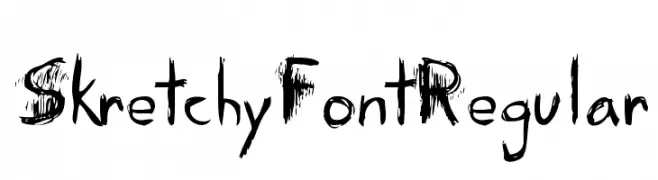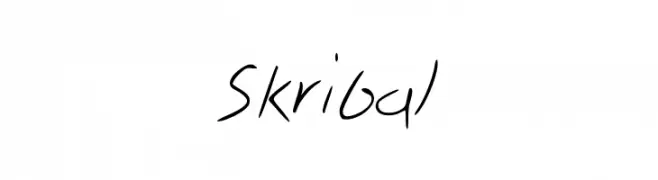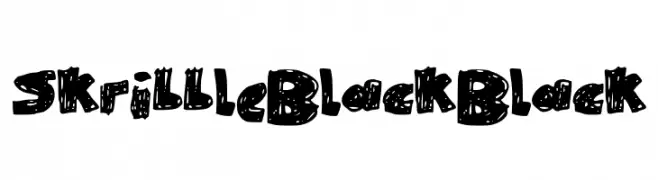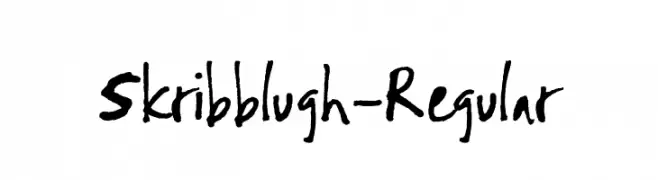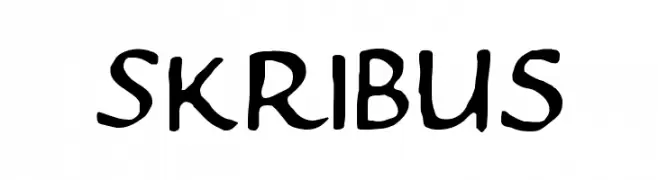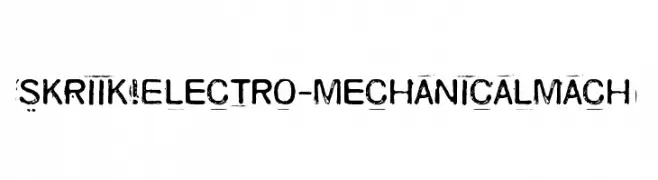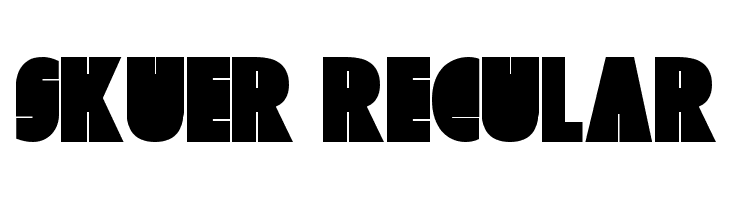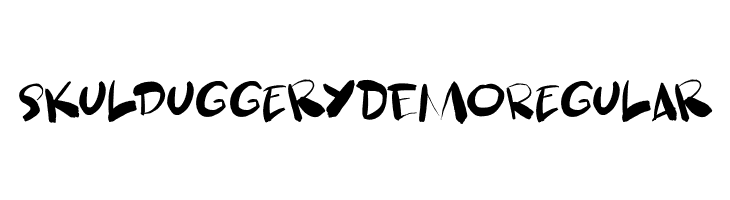
A textured, hand-drawn style font with a rough, edgy appearance.
A dynamic handwritten font with fluid, expressive strokes.
A bold, hand-drawn font with scribble patterns and a playful, artistic style.
A bold, hand-drawn font with a playful, scribbled texture.
A playful, informal handwritten font with irregular strokes and a lively appearance.
A playful, hand-drawn font with a scribbled texture and dynamic style.
A playful, handwritten font with dynamic and friendly characters.
A distressed, industrial-style font with a bold, mechanical appearance.